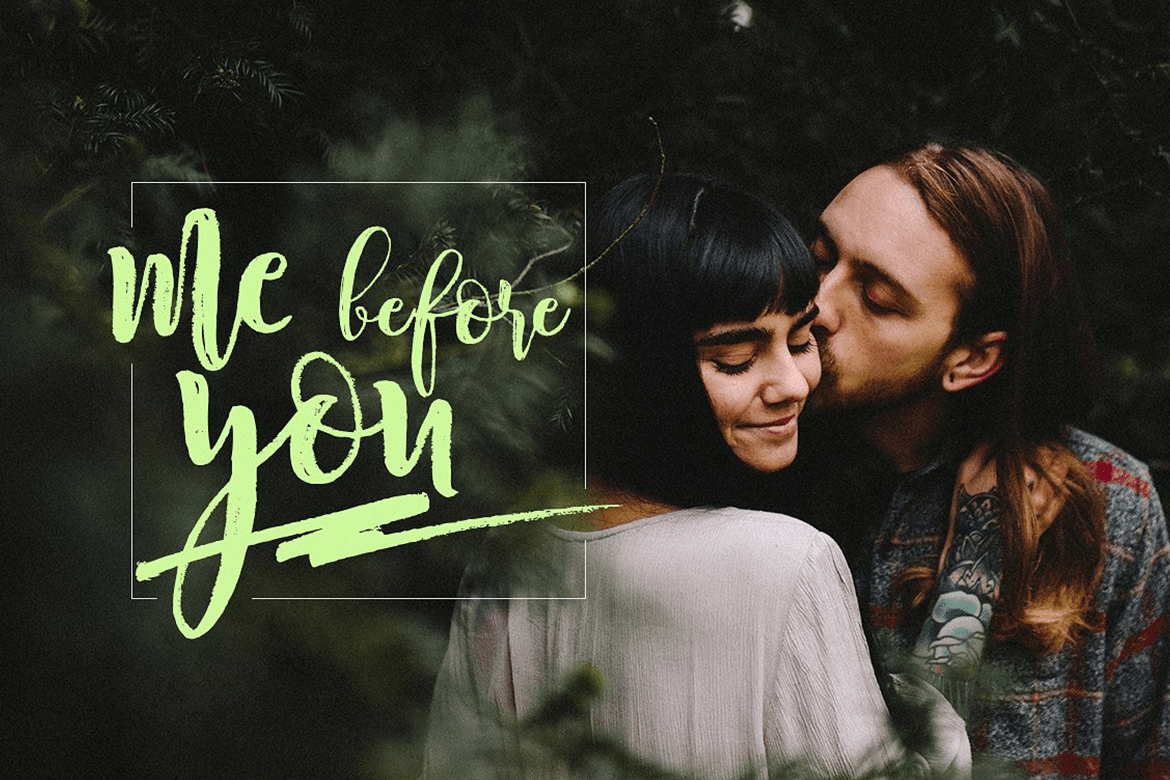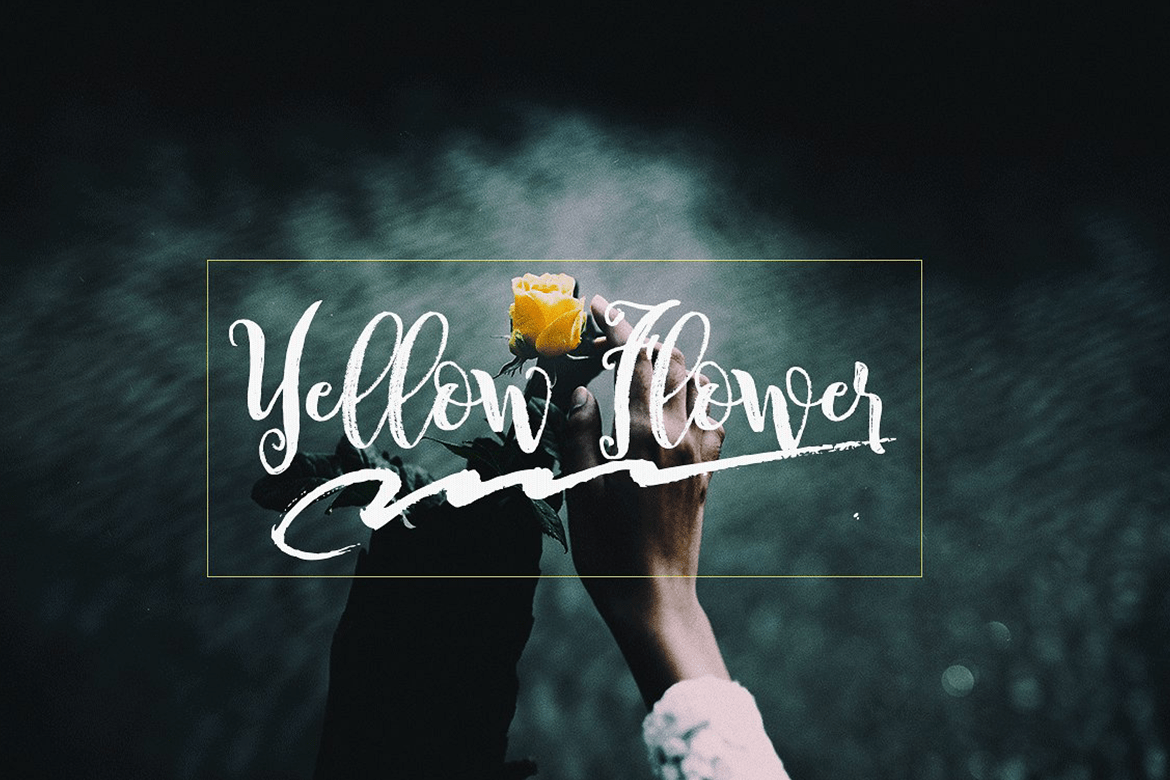
Justin
Font Family by Groen Studio
is the font style handmade dancing and then live trace to have unique ., the writing style is very natural. The Features of this fonts is; Standart ligatures, Stylistic Alternates, PUA Unicode (Private Use Areas),